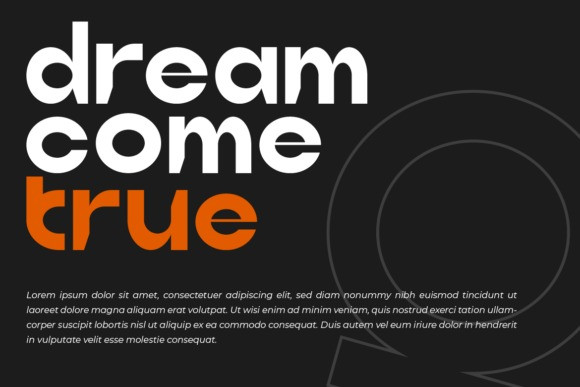
Qrilla Font
Qrilla Font is a unique sans serif display font designed by Iwan Alwan, featuring bold and unconventional letterforms that make a striking visual impact. Perfect for headlines, posters, and branding, Qrilla‘s distinctive style sets it apart from traditional fonts, adding an artistic edge to any project. With multilingual support, ligatures, and alternates, Qrilla combines creativity with versatility, making it ideal for designs that aim to stand out with a bold and modern flair.
This fonts are great for product logo,wedding card logo, clothing brand logo, Vintage design and much more.